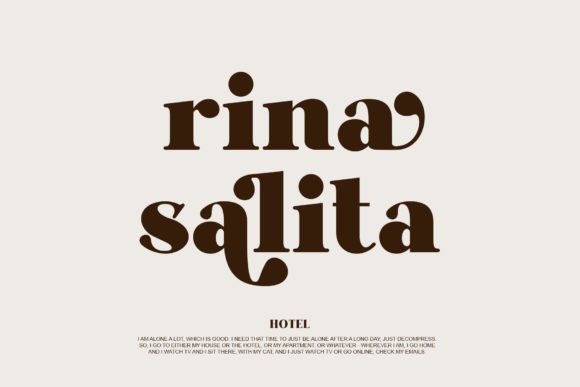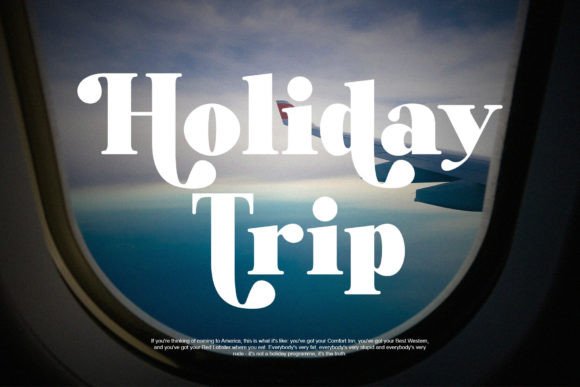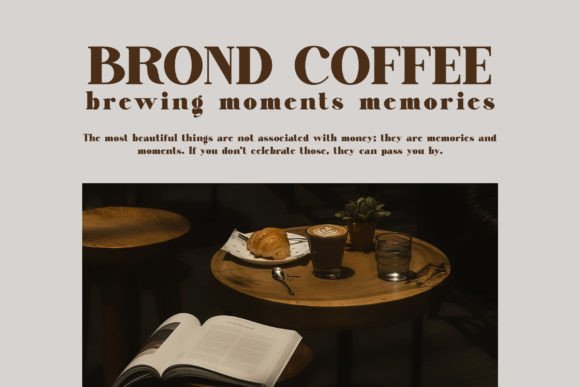
Introduction to Madiar Holida Font
Madiar Holida is an elegant and classy serif typeface – This font is both modern and nostalgic and works great for logos, magazines, and social media.
Already matched up and ready to be used together for your next design For those of you who need a touch of elegance, stylish, classy, chic, and modernity for your designs, this font was created for you.